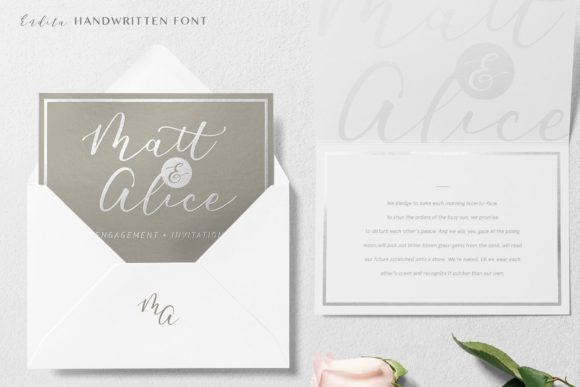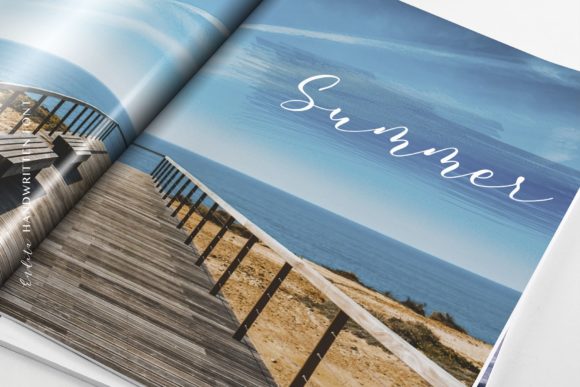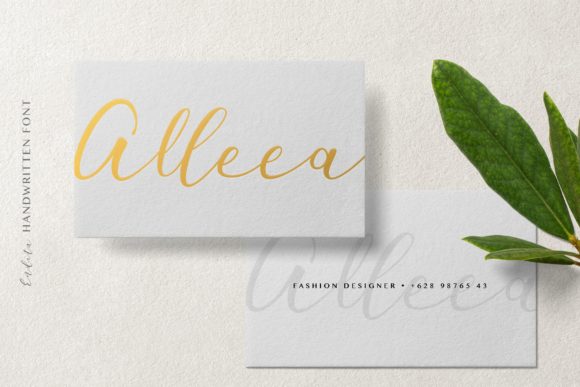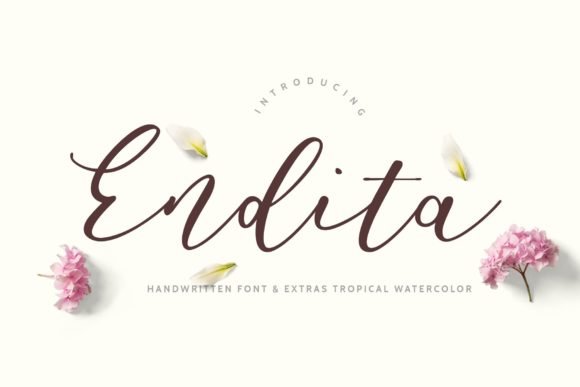
Introduction to Endita Font
Endita is a beautiful flowing handwritten font with a stylish appeal.
It will add a romantic touch to any crafting project .
Endita Font offers exceptional quality and versatility, making it a valuable addition to your design toolkit. Whether you’re creating for personal projects or commercial use, Endita Font delivers professional results.